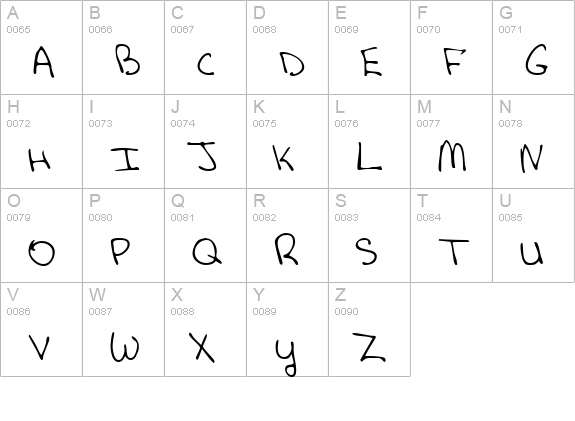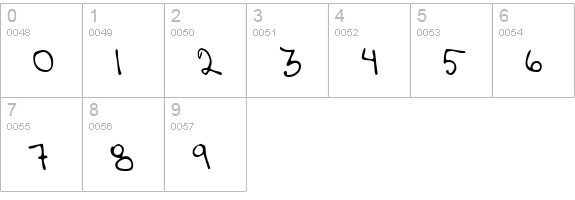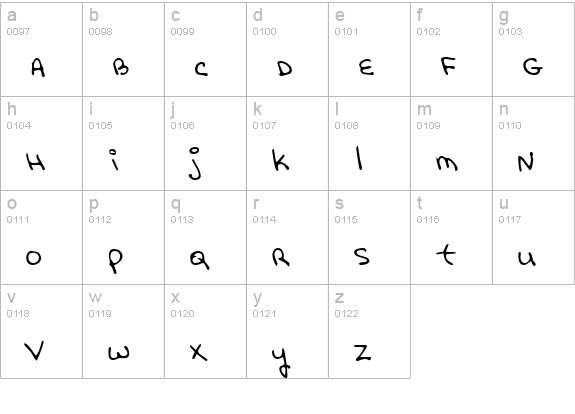
NancysHand Regular Font Details
NancysHand Regular is the standard, neutral variant in the NancysHand typeface family \xE2\x80\x94 well suited to general body text, paragraphs, and standard typographic work.
NancysHand Regular font is a charming and versatile typeface that exudes a sense of warmth and friendliness. With its delicate curves and elegant strokes, this font is perfect for adding a personal touch to your designs. Whether you're working on invitations, greeting cards, or branding materials, NancysHand Regular will bring a touch of whimsy and sophistication to your projects. The best part? NancysHand Regular is available for free download at FontsMarket.com. So go ahead and give your designs a touch of elegance with this beautiful and unique font.